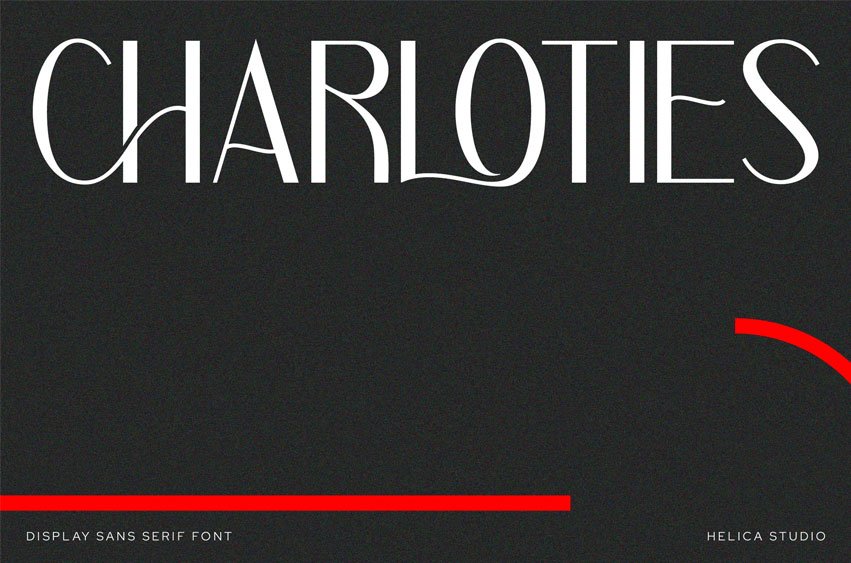
Charloties Font is a unique and artistic display sans-serif font with distinctive, flowing letterforms that appear to almost dance. While technically sans-serif, it incorporates curves and a sense of fluidity that gives it a decorative flair often found in script or display serifs. Its aesthetic is modern, chic, and playful, yet sophisticated. The bold, dark background with minimal red accents in the example image allows its expressive shapes to stand out.
Suitable for: Branding: Creative agencies, modern art galleries, contemporary fashion brands, event planning, bespoke services. Logos: Brands looking for a memorable, artistic, and unique visual identity. Posters/Album Art: Designs that need to convey creativity, movement, and a distinctive style. Editorial: Feature titles in avant-garde magazines or digital publications. Packaging: Products aiming for a trendy, artistic, and upscale market.